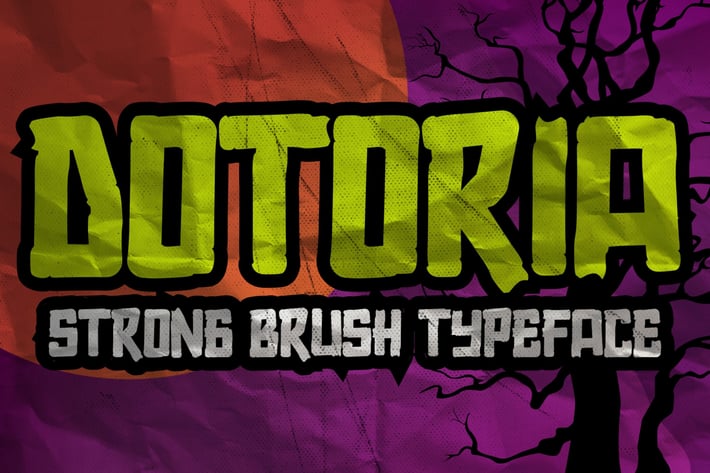
AN Dotoria - Comical handmade Font
DOTORIA - Handwritten Brush font with comical type.
Crafted manually with love and passion, This font is great for your next creative project such as logos, printed quotes, invitations, cards, product packaging, headers, Logotype, Letterhead, Poster, Label, Game project and etc.
+ Standar and Italic Mode
+ Multilingual